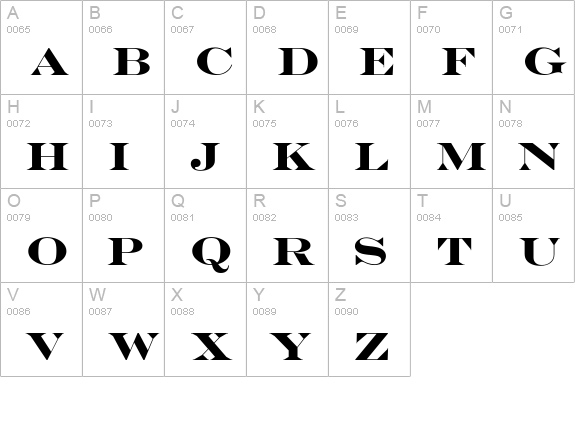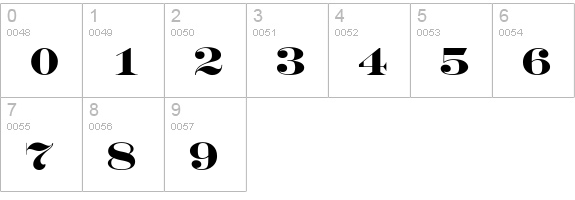
MEngravers-BoldSizeOne Font Details
MEngravers-BoldSizeOne is a bold and distinctive font that exudes strength and elegance. Its sharp lines and precise angles make it perfect for creating eye-catching headlines, logos, and branding materials. With a modern and sophisticated look, this font is sure to make a statement in any design project. The best part? MEngravers-BoldSizeOne is available for free download at FontsMarket.com. Now you can add this versatile and stylish font to your collection without any cost. Whether you're working on a personal project or a professional design, MEngravers-BoldSizeOne is a fantastic choice that will elevate your work to the next level. Don't miss out on this opportunity to enhance your designs with this stunning font - download it for free today!